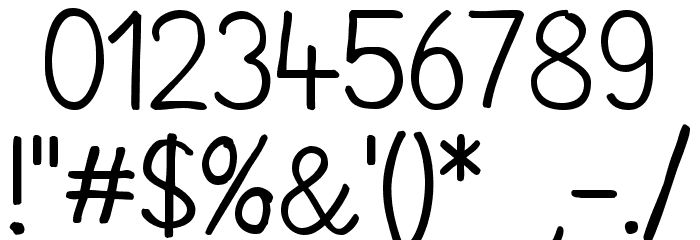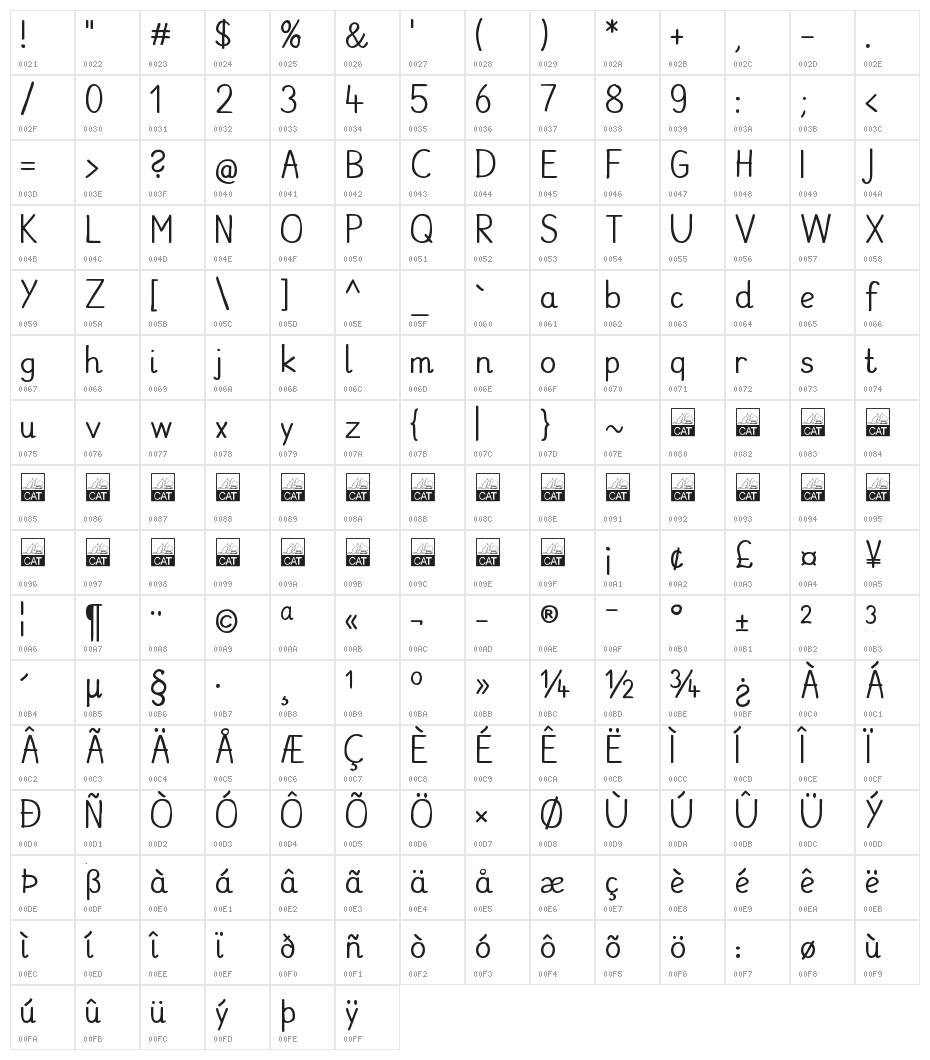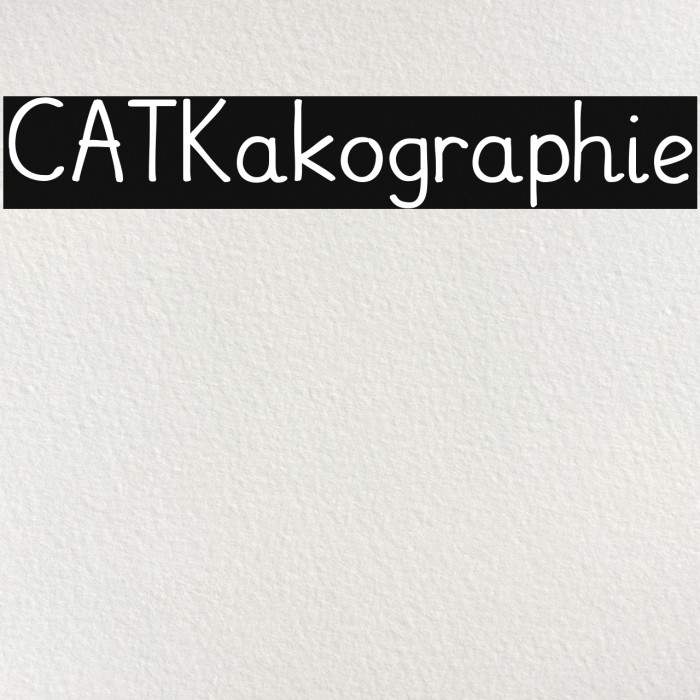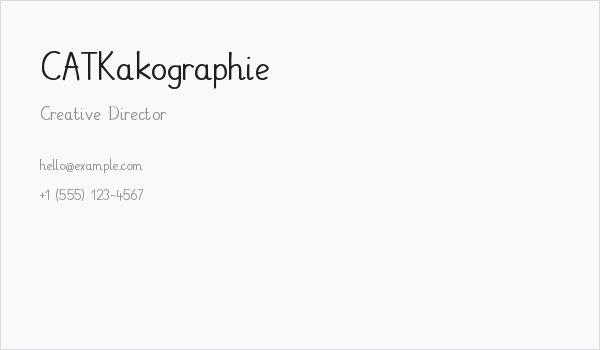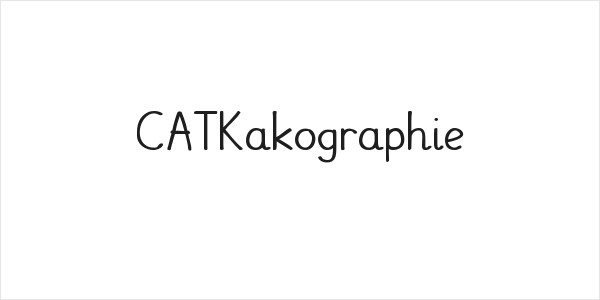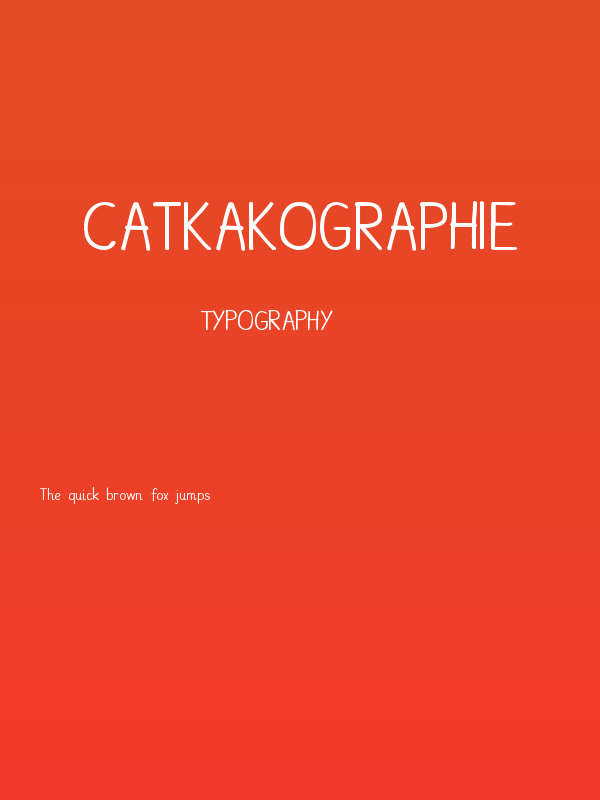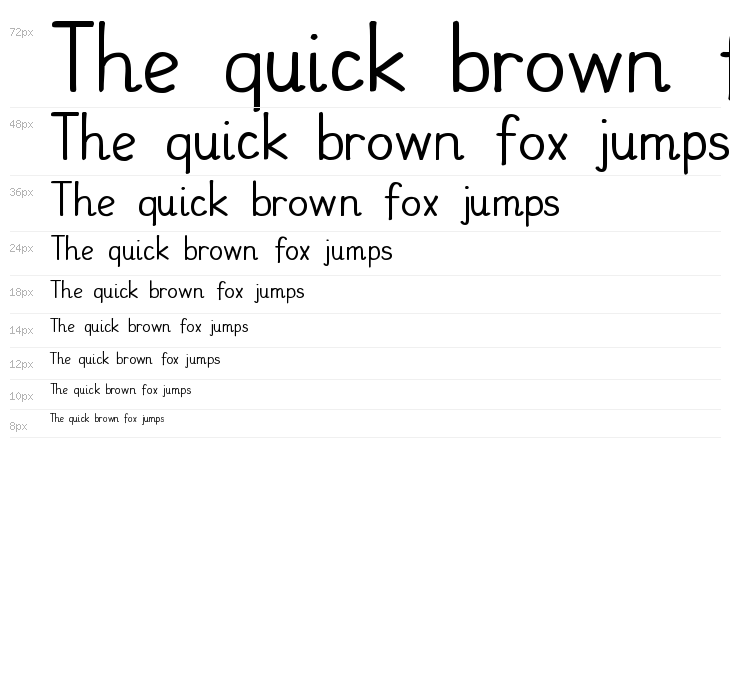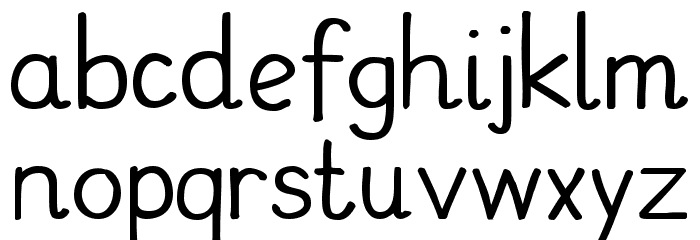
CATKakographie Font
CATKakographie Description
This font features a playful and casual handwritten style, characterized by its rounded edges and slightly irregular strokes. The uppercase letters are bold and stand out with a consistent height, while the lowercase letters maintain a friendly and approachable appearance. The numerals are clear and easy to read, matching the overall style of the alphabet. Special characters are included, adding versatility for various uses. The font's informal nature makes it suitable for creative projects, children's materials, and any design that requires a touch of whimsy.